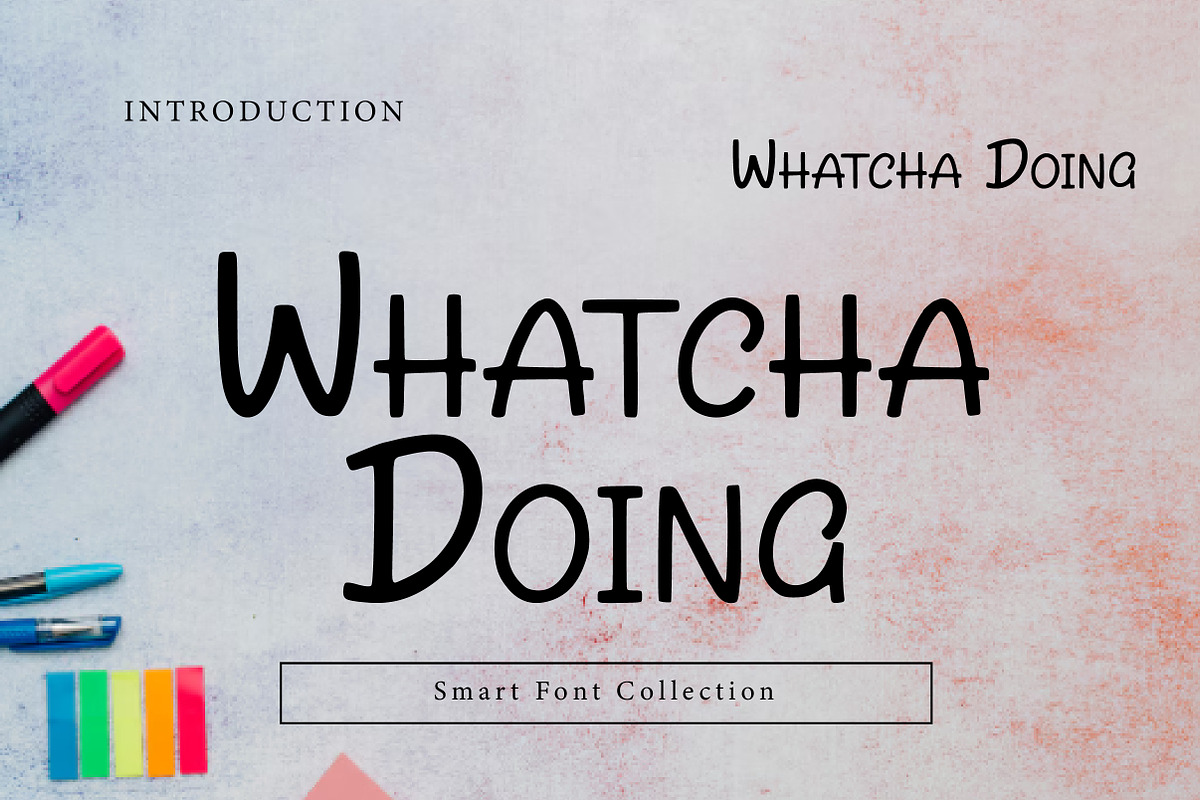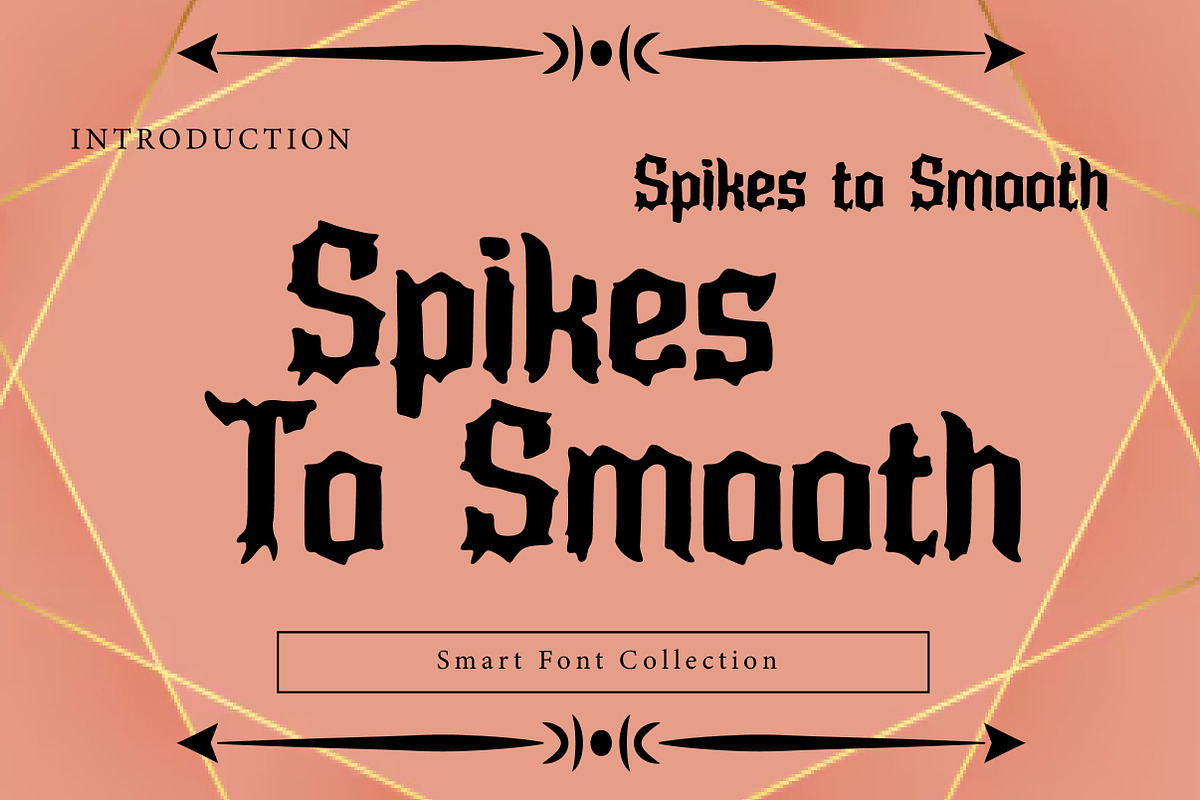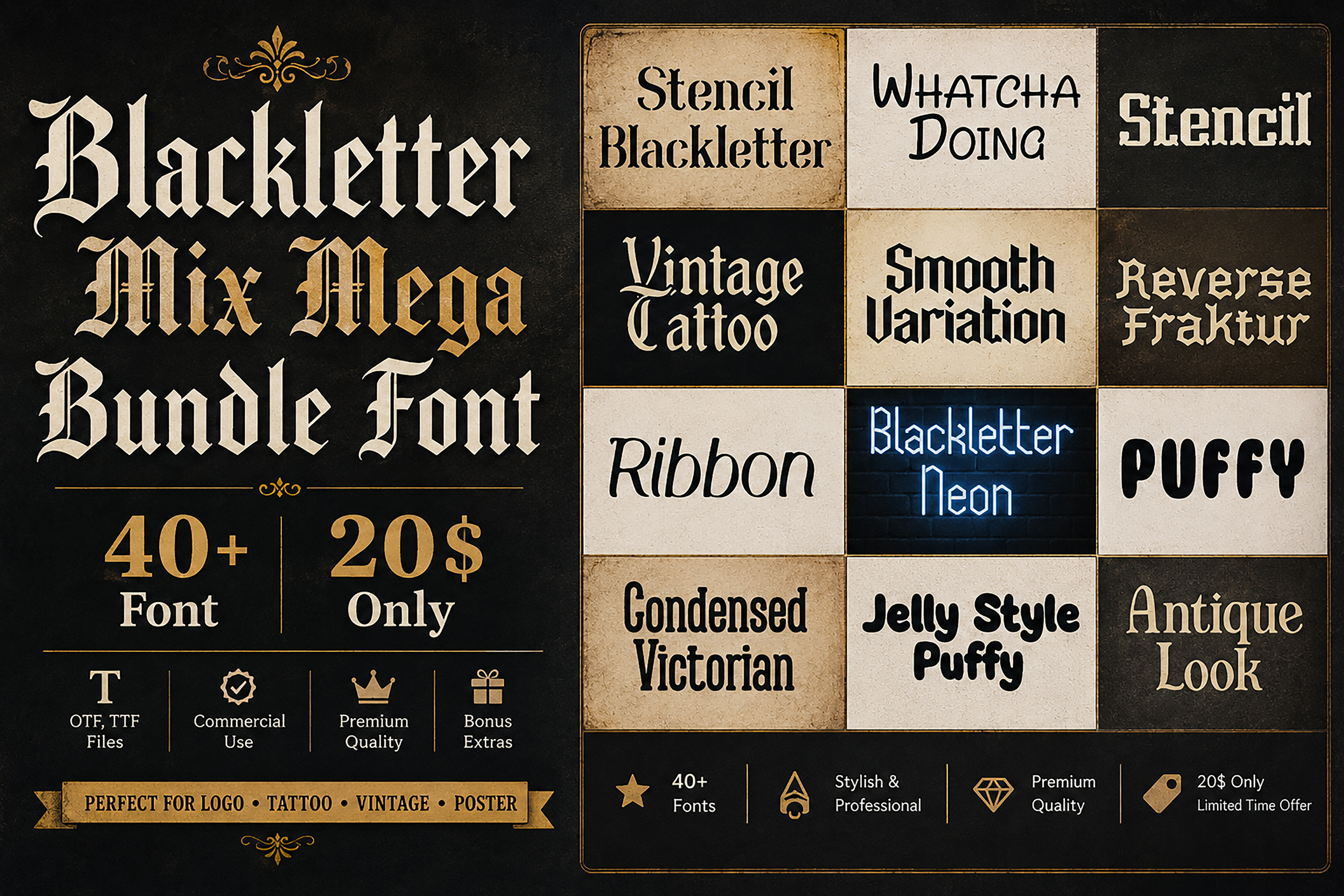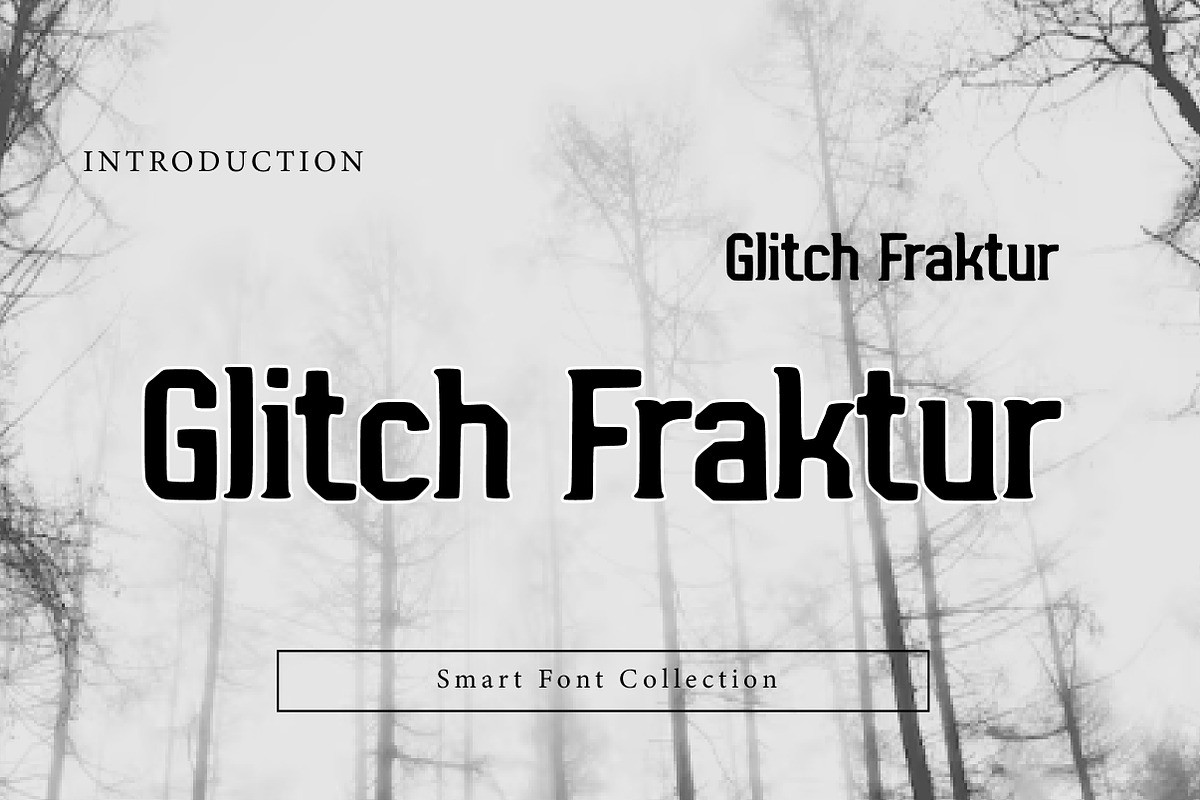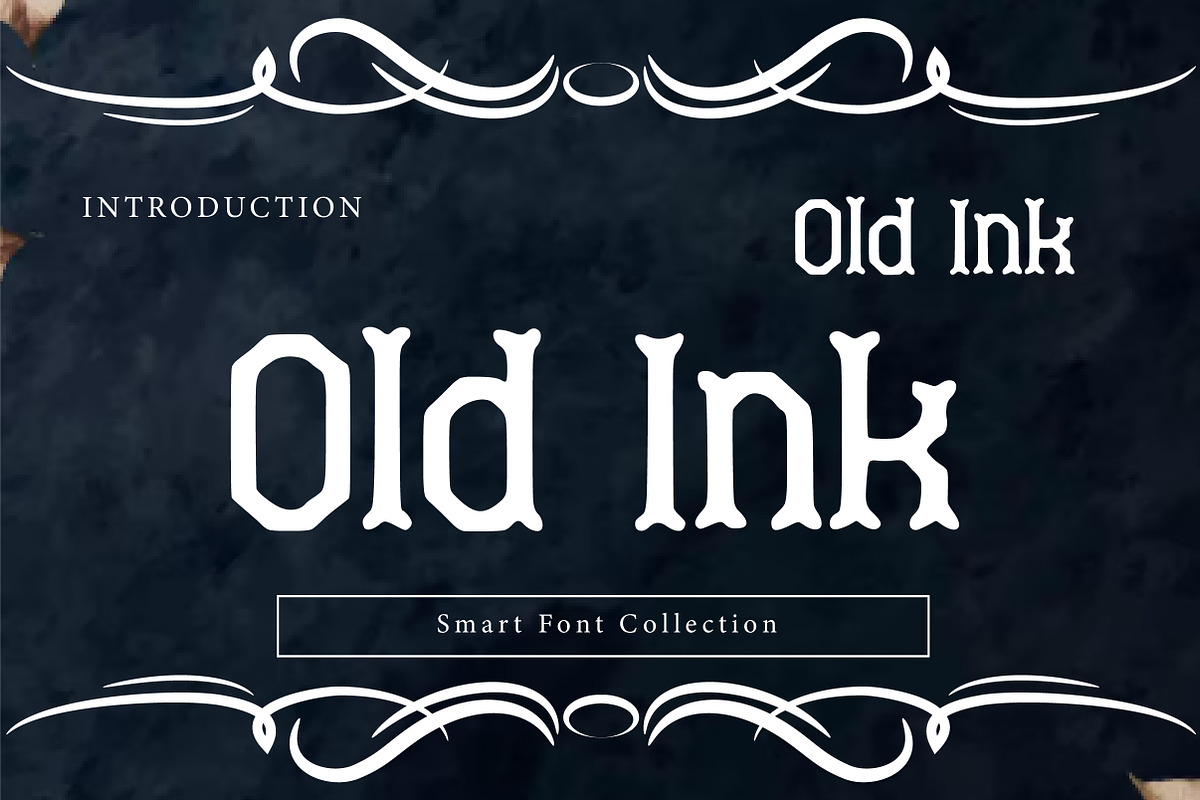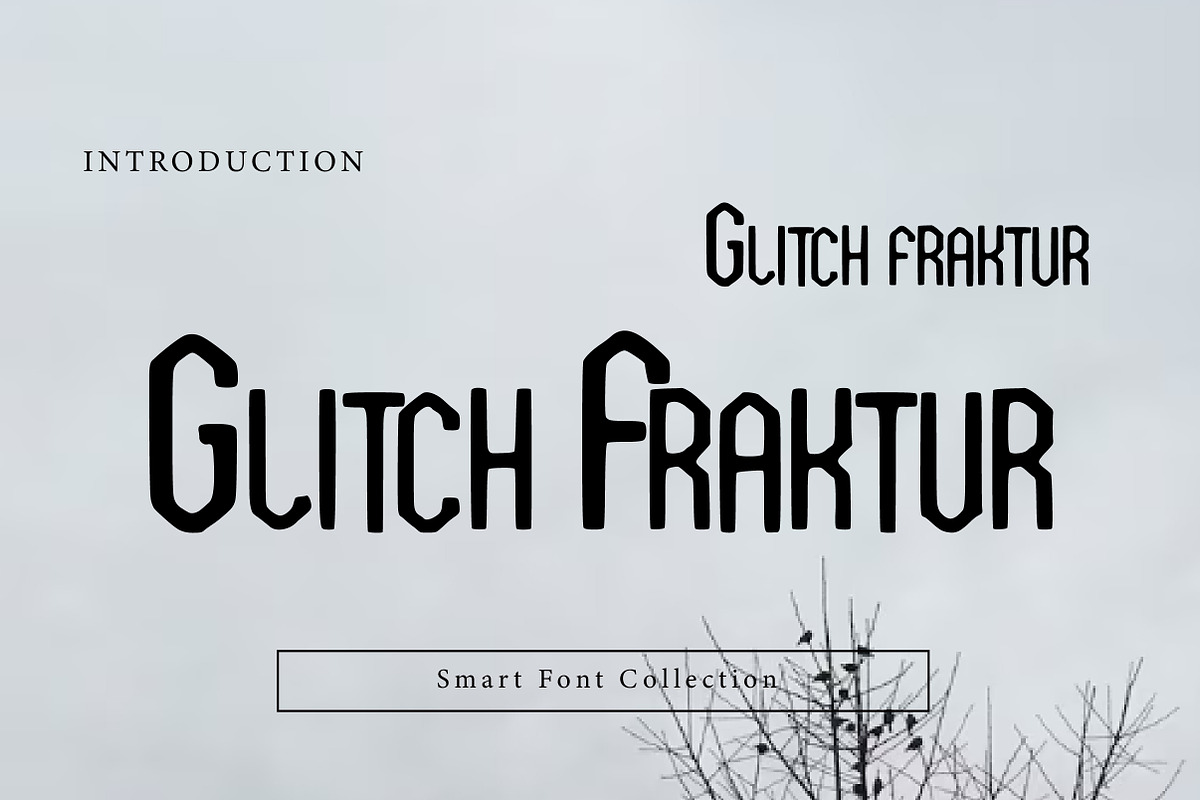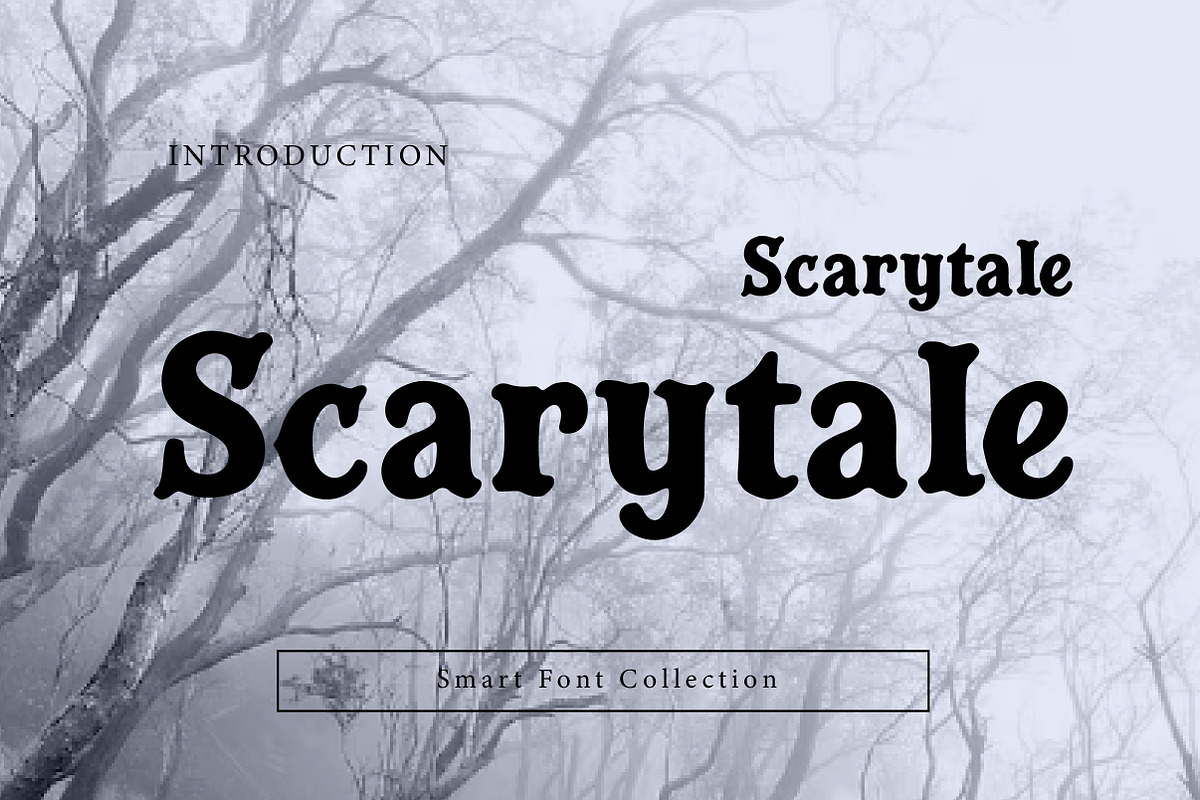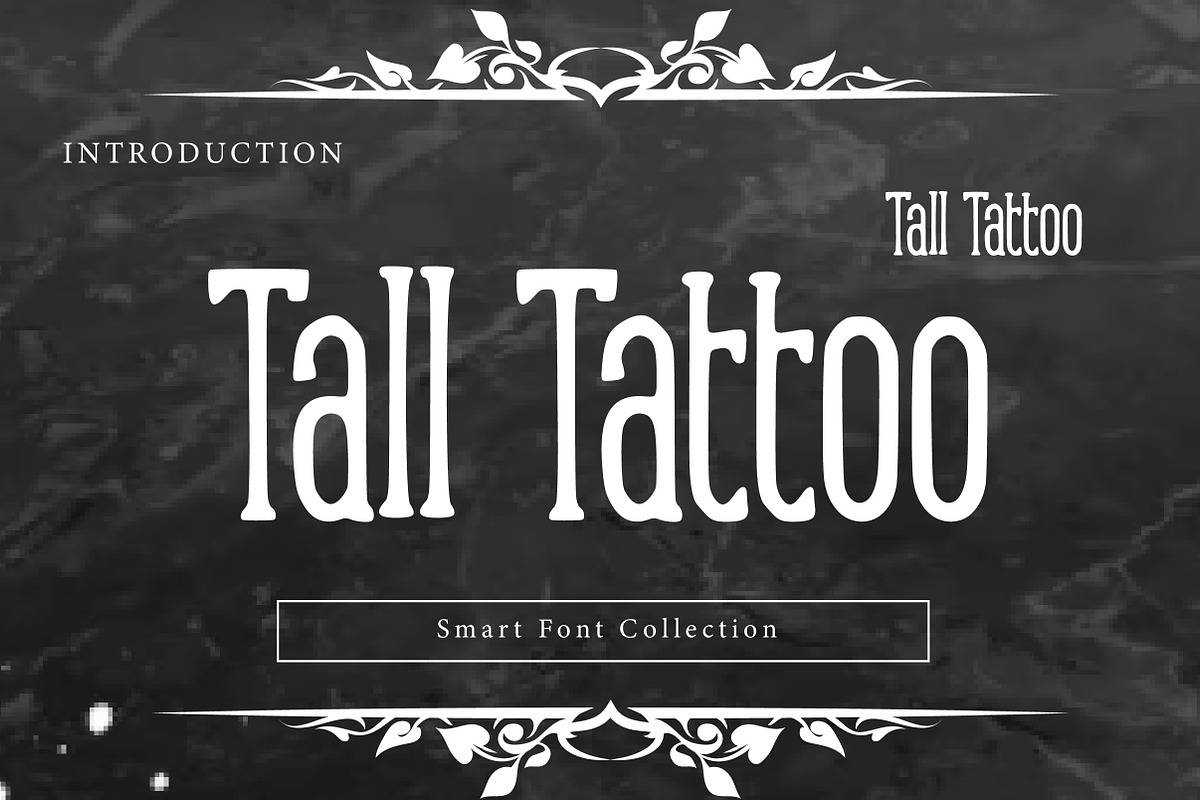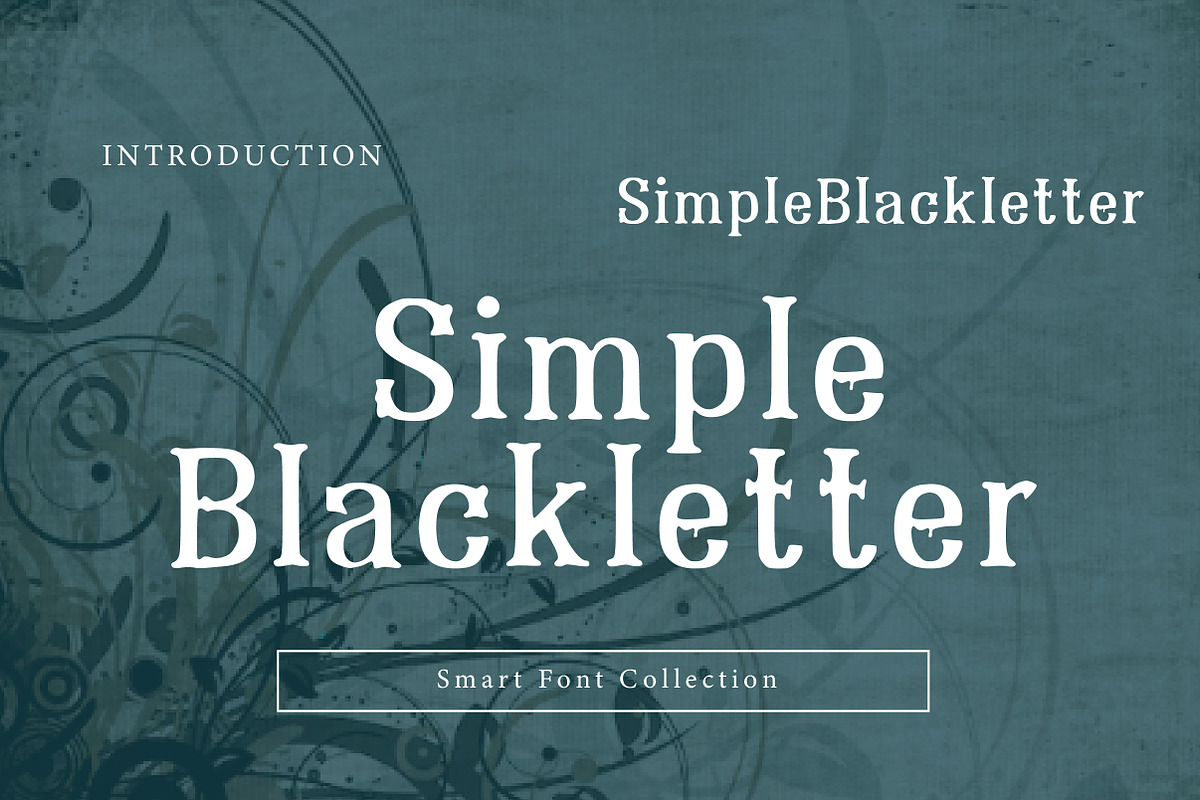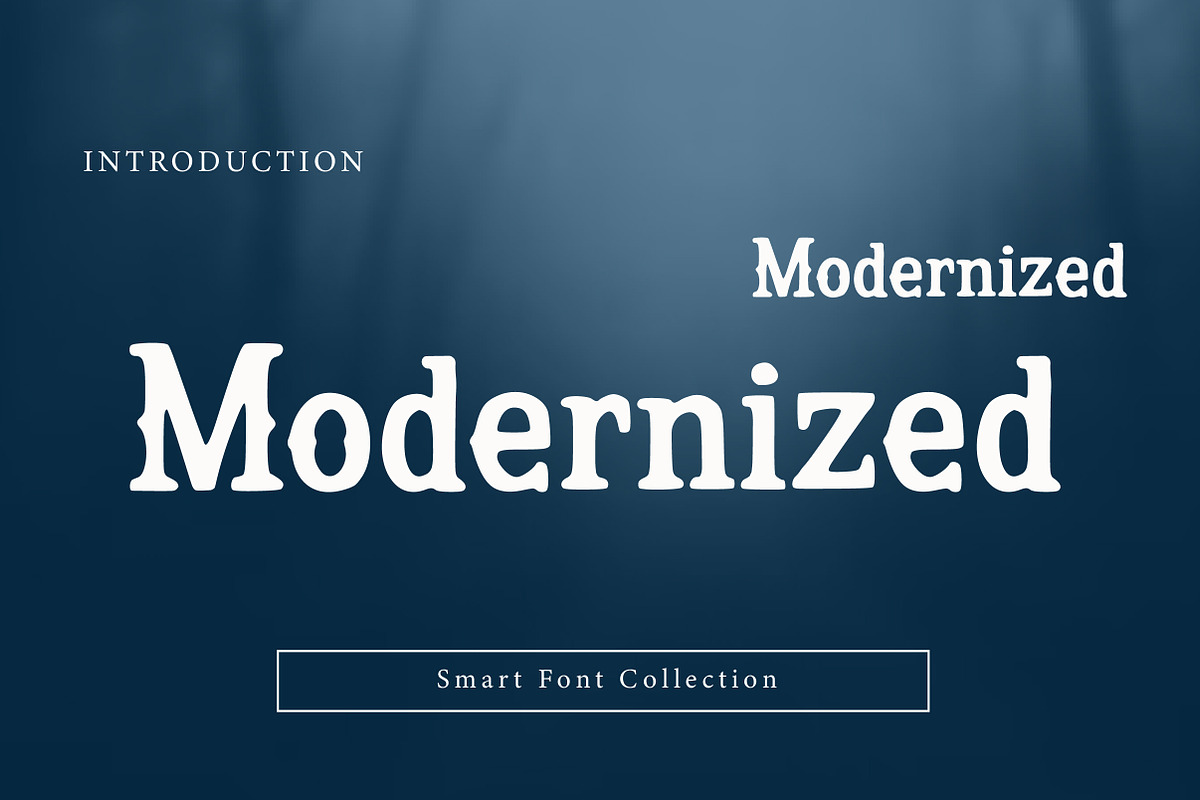
Blackletter Mix Mega Bundle Font
Introducing Blackletter Mix Mega Bundle Font, a premium collection of 40+ unique display fonts carefully curated for designers, creators, branding experts, and small business owners. This versatile bundle combines a wide variety of styles including Blackletter, Gothic, Fraktur, Vintage, Tattoo, Stencil, Victorian, Condensed, Ribbon, Neon, Puffy, and Decorative display fonts.
Each font is designed to help your projects stand out with strong personality, professional quality, and creative flexibility.
Multiple Font Styles
Vintage & Modern Designs
Tattoo & Blackletter Fonts
Stencil & Decorative Fonts
High-Quality Display Fonts